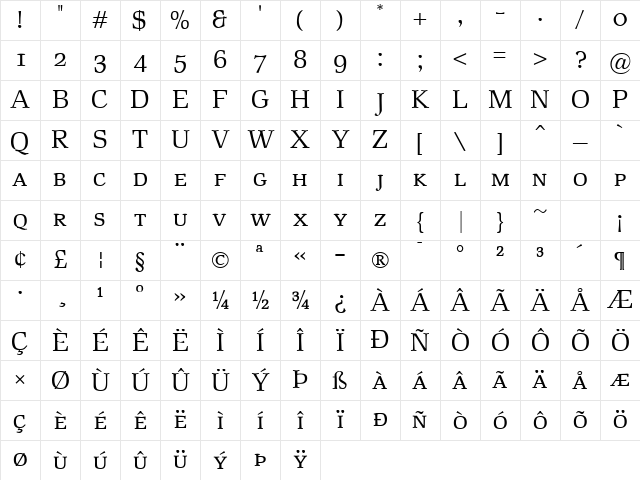
Rustika SC Regular Free Font
Rustika SC Regular
Design Context for Rustika SC
Rustika SC is a composed and adaptable typeface that performs quietly and consistently across a wide range of design contexts.